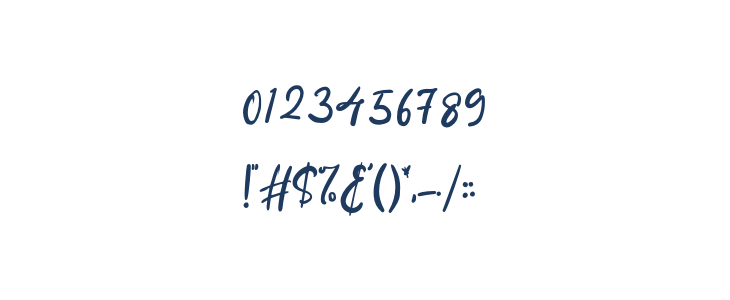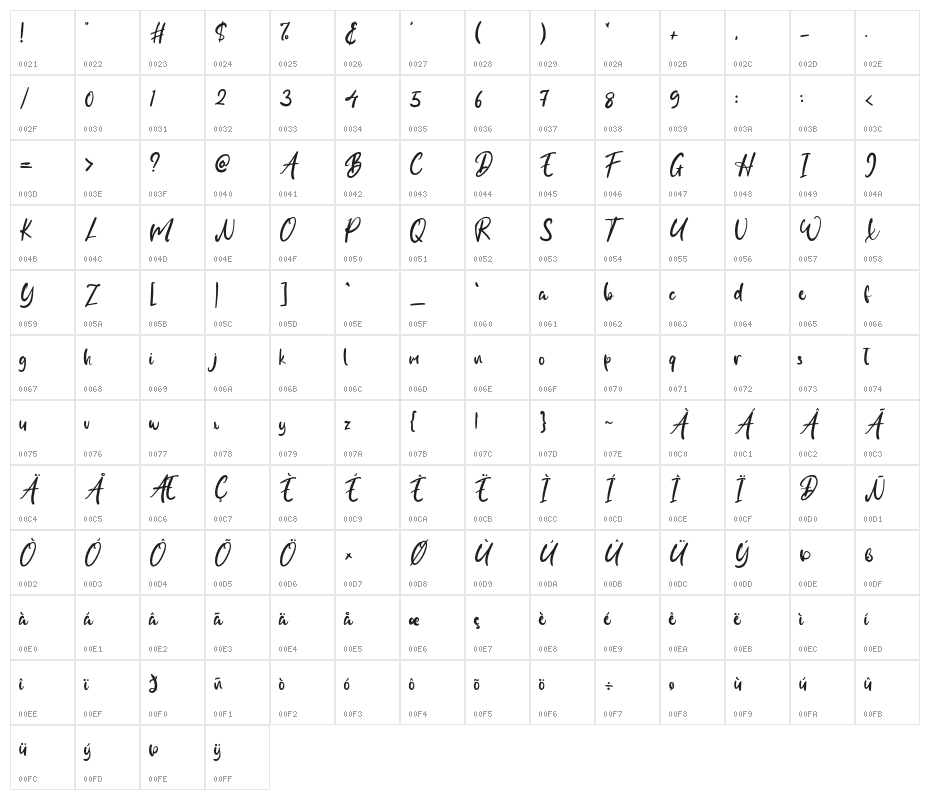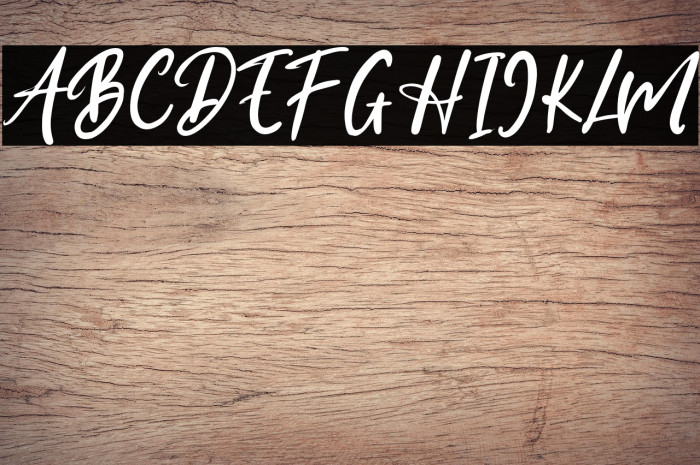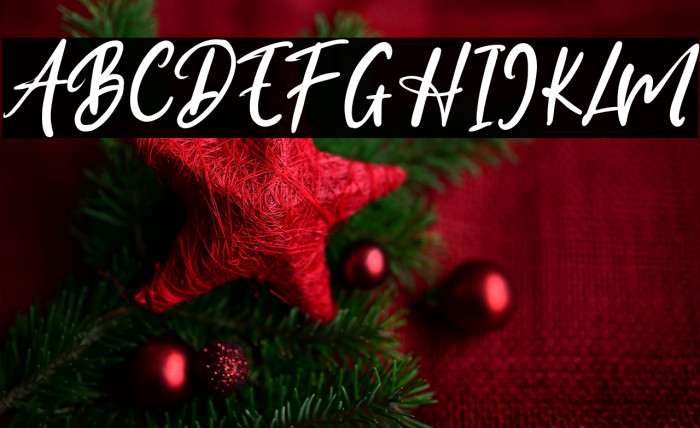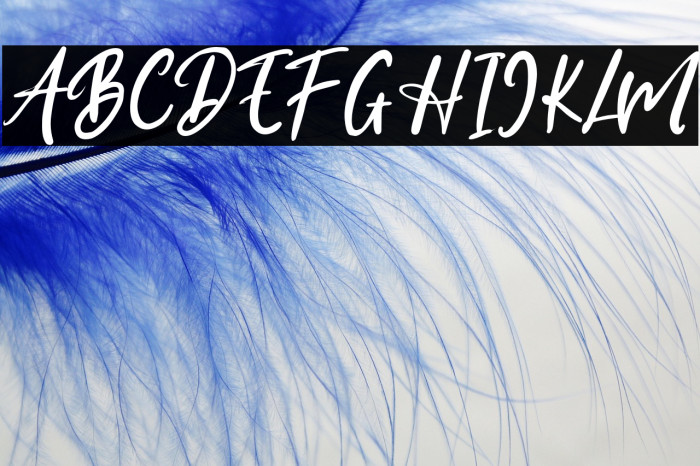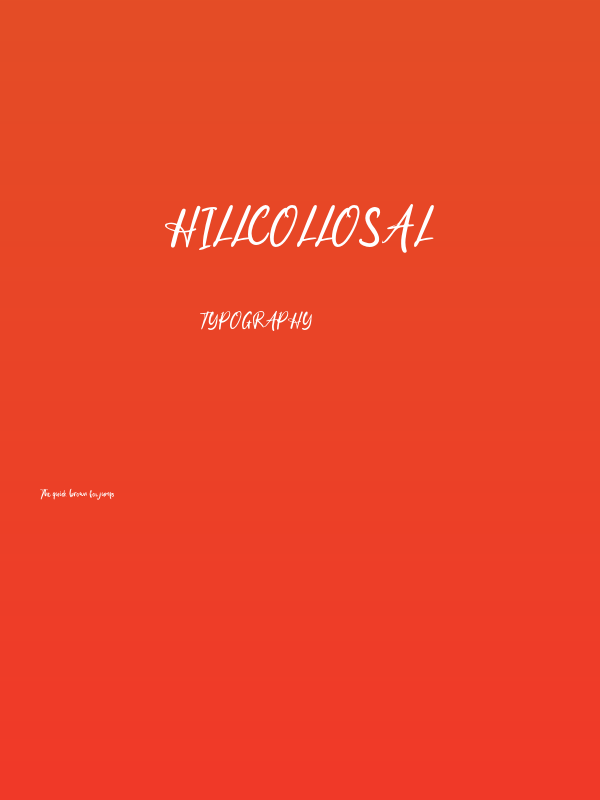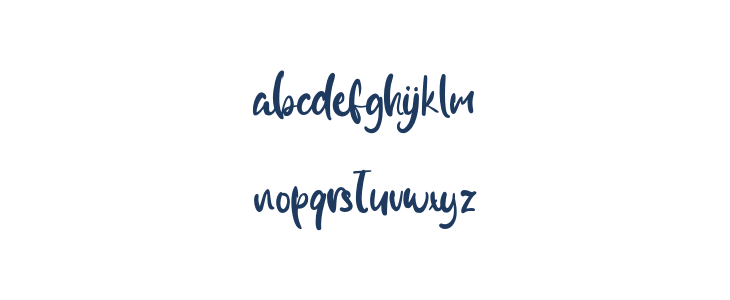
HillCollosal Font
HillCollosal Description
This font features a dynamic and flowing script style, characterized by its elegant and fluid strokes. The uppercase letters exhibit a graceful, cursive form with a slight slant, giving a sense of movement and sophistication. The lowercase letters maintain a consistent flow, complementing the uppercase with their rounded and connected forms. Numbers and special characters are designed to match the overall aesthetic, ensuring a cohesive look across all elements. The font's design is both stylish and legible, making it suitable for a variety of creative applications.
| Overall Style | Elegant |
| Use Case | Logos, Invitations, Decorative text |
| Proposed Projects | Ideal for wedding invitations, branding, greeting cards, and elegant packaging designs. |